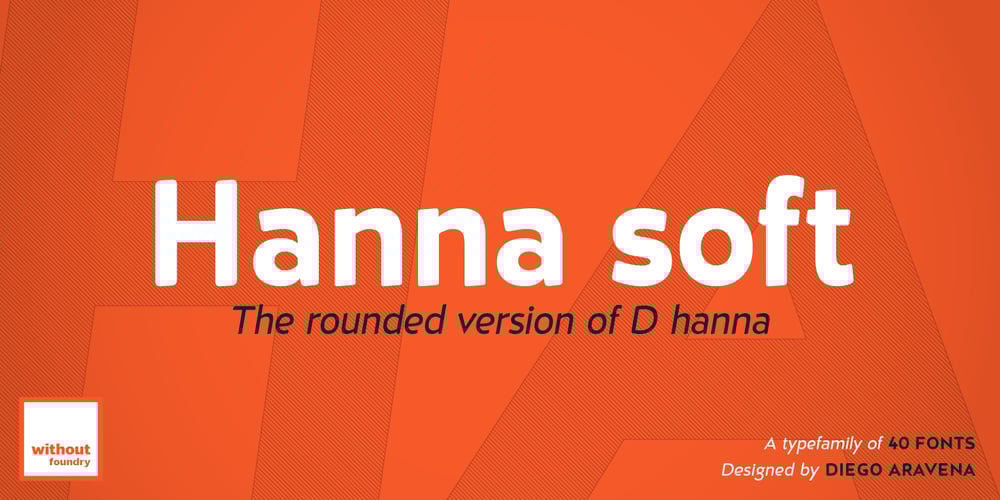
D Hanna Soft
D Hanna Soft font
D Hanna Soft Font Family was designed by Diego Aravena Silo and published by W Type Foundry. D Hanna Soft contains 20 styles and family package options. D Hanna Soft is a sans serif type family of 9 weights plus matching italics. It is inspired by the geometric style sans serif faces with a mix of rounded shapes and a little bit of black in some corners. The medium weights serve very well in body text, while the thinner and bolder styles make an excellent choice for headlines . D Hanna Soft is equipped with a complete set of opentype features including alternative glyphs, fractions, ligatures and many more. It is perfectly suited for highlighting lettering, magazines, web, interaction design, advertising, logotypes, etc.